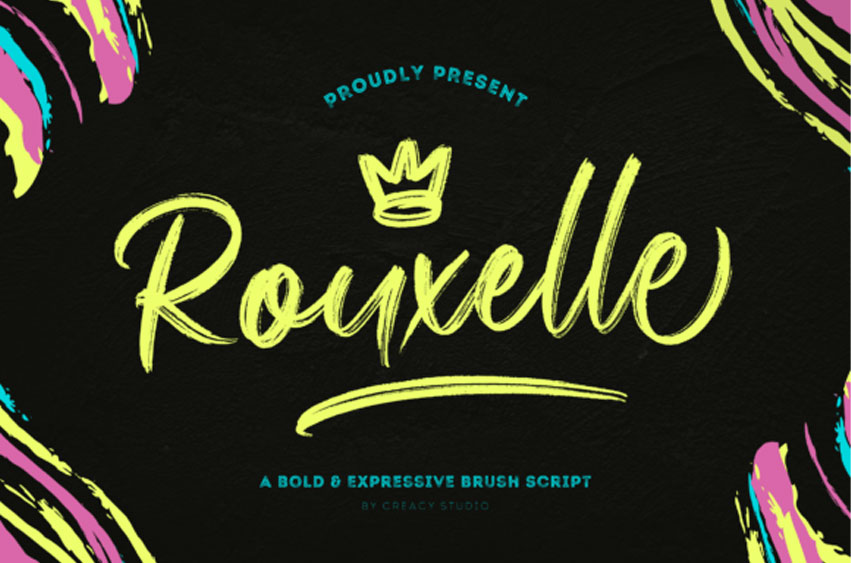
Rouxelle Font Unleash the raw energy of Rouxelle, a modern brush script crafted for those who dare to stand out.
With its dynamic strokes and effortless flow, Rouxelle embodies the perfect blend of boldness, creativity, and authenticity, making it an exceptional choice for branding, merchandise, and social media designs.